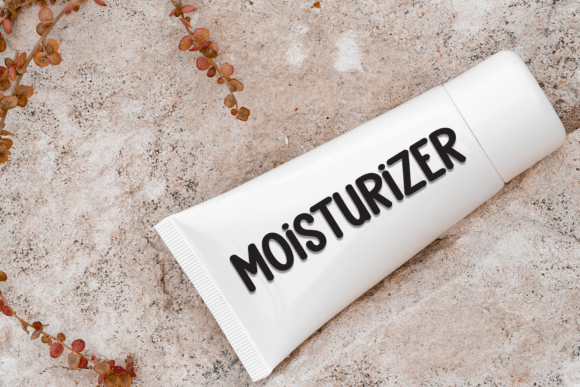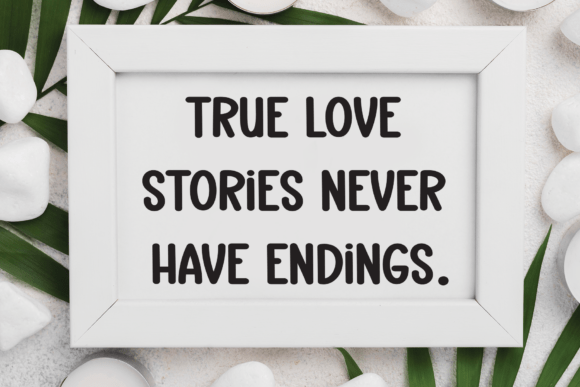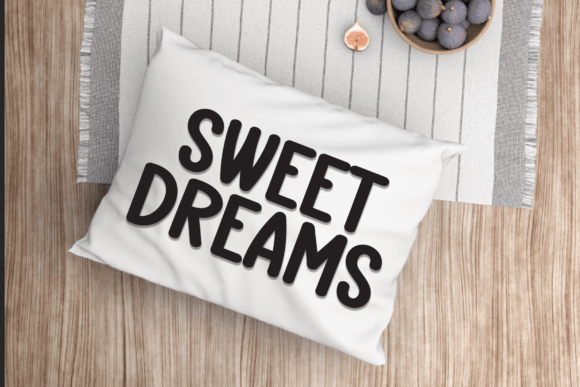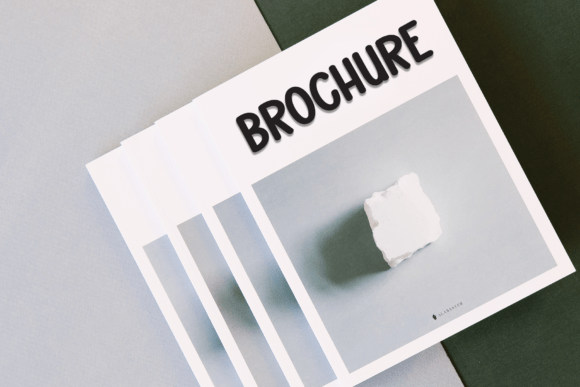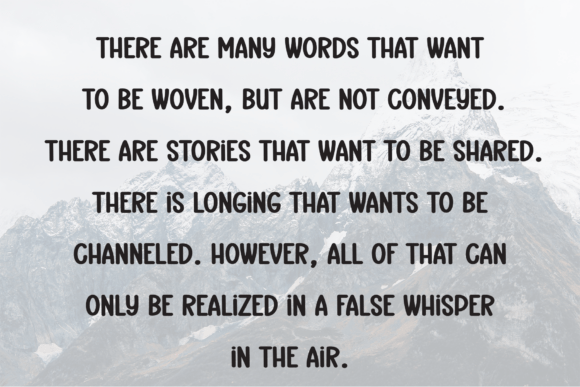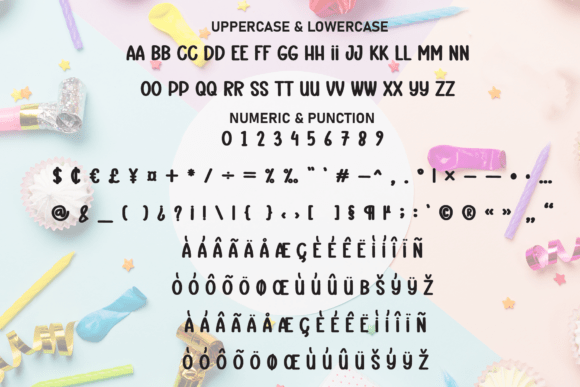
Introducing Birthday Font: The Perfect Choice for Your Celebratory Designs
Are you looking for a font that captures the essence of joy and celebration? Look no further than Birthday Font, a casual and neat display font that radiates a fresh, friendly vibe. With its clean lines and relaxed structure, this font is perfect for a variety of design projects, from packaging and posters to social media graphics and more.
What Makes Birthday Font So Special?
Birthday Font is designed to add a touch of charm and clarity to your projects while maintaining a polished appearance. Its approachable design makes it perfect for designers and crafters who want to create celebratory and engaging content. Whether you’re designing a birthday card, a party invitation, or a social media post, Birthday Font is the perfect choice.
- Clean Lines: Birthday Font features clean lines that give it a crisp and modern look.
- Relaxed Structure: The font’s relaxed structure adds a touch of friendliness and approachability.
- Fresh and Friendly Vibe: Birthday Font radiates a fresh and friendly vibe that’s perfect for celebratory designs.
- Perfect for Packaging: The font’s clean and polished appearance makes it perfect for packaging designs.
- Great for Posters and Social Media Graphics: Birthday Font is also great for posters and social media graphics, where its friendly vibe can help grab attention.
How to Use Birthday Font in Your Designs
Birthday Font is a versatile font that can be used in a variety of design projects. Here are a few ideas to get you started:
- Birthday Cards: Use Birthday Font to create custom birthday cards that are sure to impress.
- Party Invitations: Create eye-catching party invitations with Birthday Font.
- Social Media Posts: Use Birthday Font to create engaging social media posts that celebrate special occasions.
- Packaging Designs: Add a touch of personality to your packaging designs with Birthday Font.
- Posters: Create bold and eye-catching posters with Birthday Font.
Why Designers and Crafters Love Birthday Font
Designers and crafters love Birthday Font for its unique combination of style and versatility. Here are a few reasons why:
- Easy to Read: Birthday Font is easy to read, even at small sizes.
- Highly Versatile: The font can be used in a variety of design projects, from digital to print.
- Fresh and Modern Look: Birthday Font’s clean lines and relaxed structure give it a fresh and modern look.
- Perfect for Celebratory Designs: The font’s friendly vibe makes it perfect for celebratory designs.
Tips for Getting the Most Out of Birthday Font
Here are a few tips for getting the most out of Birthday Font:
- Experiment with Different Sizes: Try out different sizes to see how Birthday Font looks in different contexts.
- Pair with Other Fonts: Experiment with pairing Birthday Font with other fonts to create unique and interesting combinations.
- Use in Combination with Images: Use Birthday Font in combination with images to add an extra layer of depth to your designs.
- Don’t Be Afraid to Get Creative: Don’t be afraid to try out new and creative ways to use Birthday Font.
In conclusion, Birthday Font is a versatile and stylish font that’s perfect for designers and crafters who want to create celebratory and engaging content. With its clean lines, relaxed structure, and friendly vibe, Birthday Font is sure to become a go-to font in your design arsenal. So why wait? Download Birthday Font today and start creating your own unique designs!